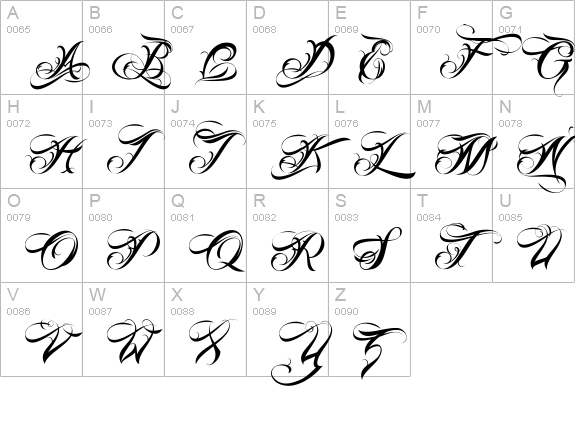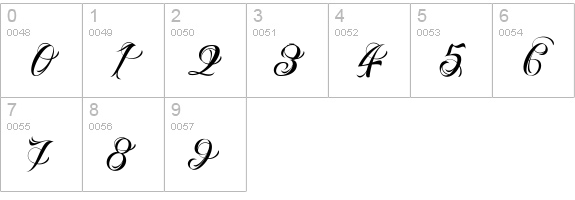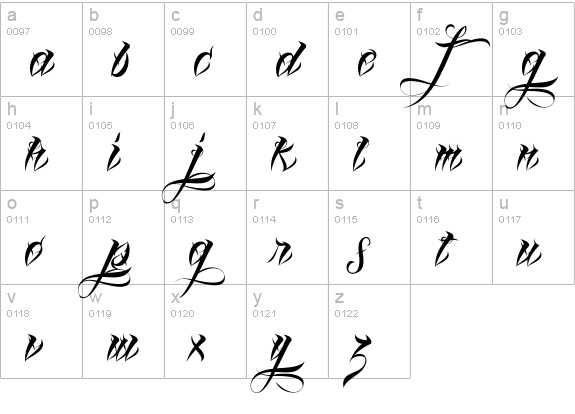
Lina Script Alt Demo Font Details
Lina Script Alt Demo font is a beautifully crafted typeface that exudes elegance and sophistication. With its flowing curves and delicate strokes, this font adds a touch of grace to any design project. Whether you're creating wedding invitations, branding materials, or simply looking to add a touch of charm to your personal blog, Lina Script Alt Demo font is the perfect choice. What makes this font even more appealing is that it is free! That's right, you can download Lina Script Alt Demo font at no cost from FontsMarket.com. We believe that great design should be accessible to everyone, and that's why we are delighted to offer this stunning font for free. With its alternate characters and ligatures, Lina Script Alt Demo font allows you to create unique and eye-catching designs. Its versatility makes it suitable for a wide range of projects, from logos to packaging, from social media graphics to advertising materials. The attention to detail in each letterform is evident, making Lina Script Alt Demo font a true work of art. The subtle variations in line weight and the graceful transitions between letters give this font a handcrafted feel, adding a personal touch to your designs. So why wait? Download Lina Script Alt Demo font today and elevate your design projects to new heights. Whether you're a professional designer or a hobbyist, this font will surely impress. And the best part? It's free! Head over to FontsMarket.com now and get your hands on this stunning typeface. Happy designing!